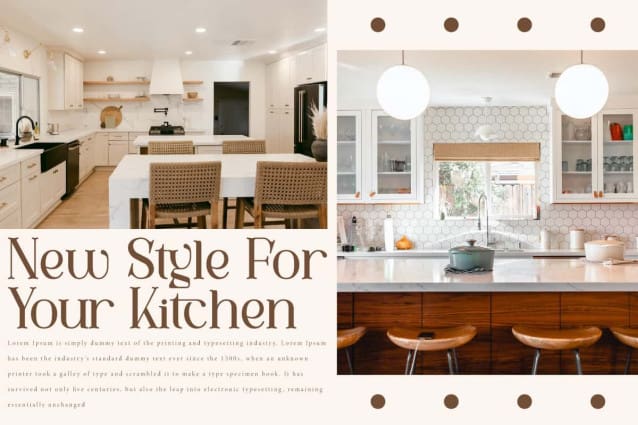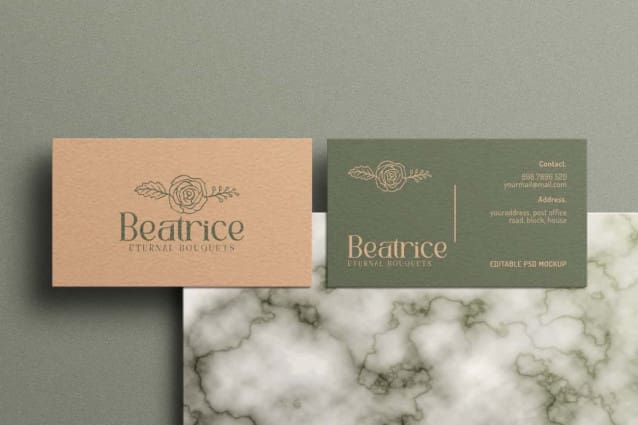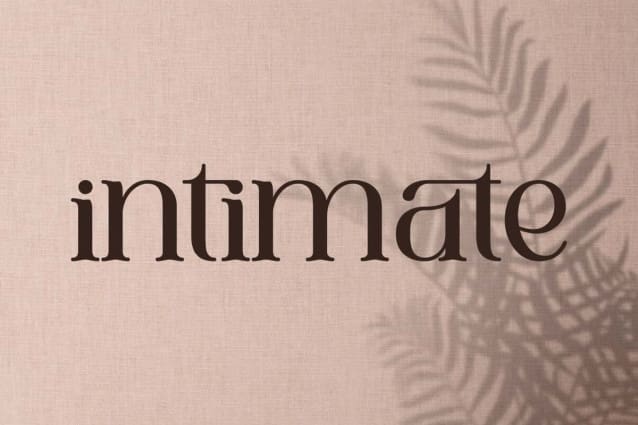
Intimate Font
Intimate Font is an elegant serif display font with charming ligatures. This contemporary vintage font designed with maximum visual impact and professional aesthetics. The font is filled with subtle quirks while still maintaining its graceful form. Perfect for apps, banner, brochure, card design, cover, headers, headline, invitation, logos, mockup, poster, quotes, template, title, and many more.
Intimate Font contains a complete set of basic Uppercase and Lowercase characters, Numbers, Symbols, Punctuation and Ligature. With a balanced modern retro font feel, it produces beautiful and unique letter shapes. It will be useful for advertisements, beauty clinic, boutique, cafes, fashion, florist, graphic design, handicraft, home furniture, photography, restaurant, spa salon, and more.